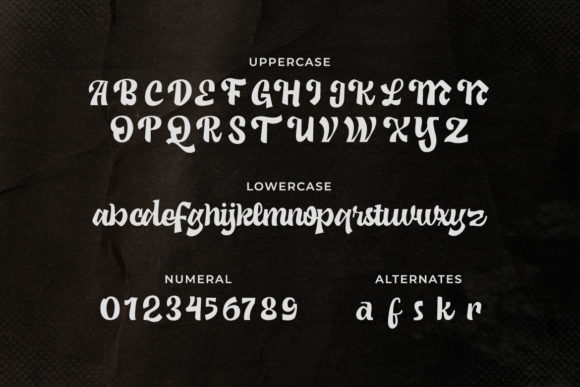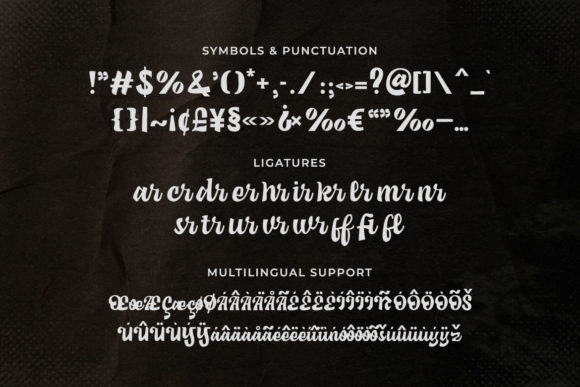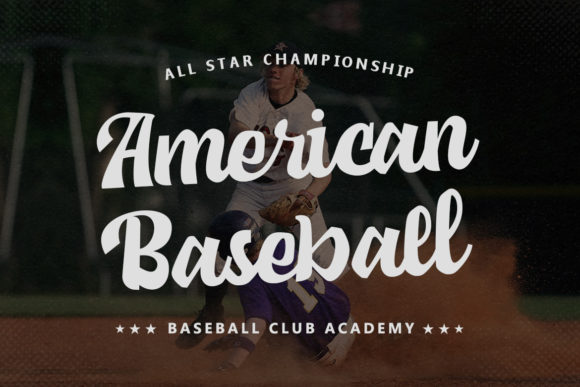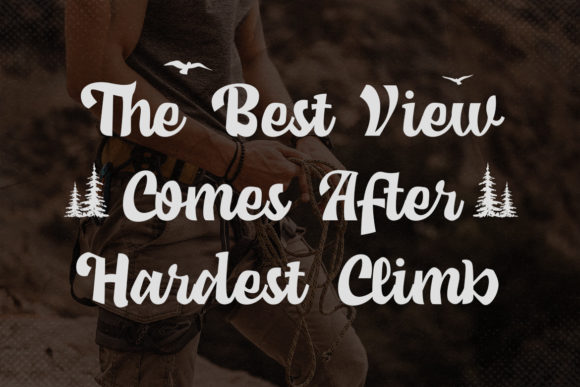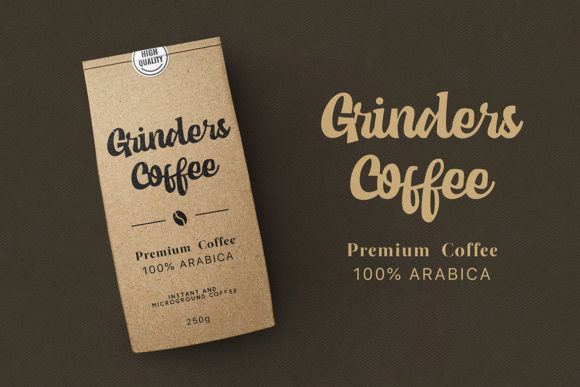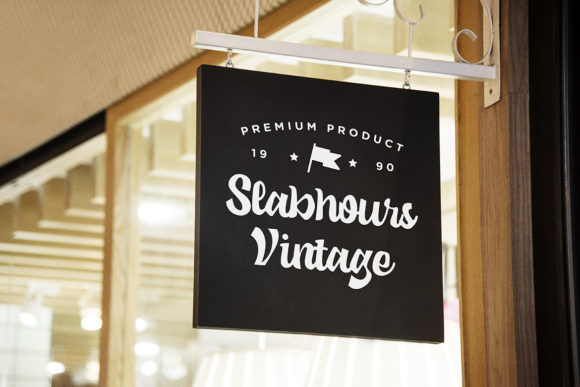
Introducing Abrock Font: Elevate Your Designs with Elegance and Sophistication
Are you on the hunt for a font that exudes beauty, elegance, and versatility? Look no further than Abrock Font, a stunning handwritten typeface that is sure to take your creative projects to the next level. Whether you’re a designer, crafty DIY enthusiast, or simply someone who appreciates the art of typography, Abrock Font is an excellent addition to your toolkit.
What Makes Abrock Font So Special?
Abrock Font is a beautiful and elegant handwritten font that boasts a unique charm, making it perfect for a wide range of applications. Its sophisticated and refined aesthetic lends itself well to various design projects, including:
- Logos: Create a lasting impression with a custom logo that showcases your brand’s personality and style.
- Headings: Add a touch of elegance to your headings and make your content stand out.
- Coffee Shops: Give your coffee shop a vintage and cozy feel with Abrock Font.
- Vintage Restaurants: Create a warm and inviting atmosphere with this beautiful font.
- Letterheads: Elevate your business correspondence with a professional and stylish letterhead.
- Signage: Make your signs and displays eye-catching and memorable.
- Labels: Add a personal touch to your product labels and packaging.
- News: Create engaging and easy-to-read news articles and publications.
- Posters: Design stunning posters that grab attention and tell a story.
- Badges: Create custom badges that showcase your brand’s identity and style.
Key Features of Abrock Font
Abrock Font comes with a range of features that make it an excellent choice for designers and crafters. Some of its key features include:
- Handwritten Elegance: Abrock Font boasts a beautiful, handwritten aesthetic that adds a touch of warmth and personality to your designs.
- Versatility: This font is incredibly versatile and can be used for a wide range of design projects, from logos and headings to signage and packaging.
Why Choose Abrock Font?
With so many fonts available, why choose Abrock Font? Here are just a few reasons why designers and crafters love this beautiful typeface:
- Unique Style: Abrock Font has a unique and distinctive style that sets it apart from other fonts. Its elegant, handwritten aesthetic adds a touch of sophistication to any design.
- High-Quality Design: Abrock Font is designed to the highest standards, ensuring that your designs look professional and polished.
Tips for Using Abrock Font
To get the most out of Abrock Font, here are a few tips to keep in mind:
- Experiment with Sizes: Abrock Font looks great in a range of sizes, from small headings to large display text. Experiment with different sizes to find the perfect fit for your design.
- Add Texture and Patterns: Add texture and patterns to your design to give it an extra layer of depth and interest.